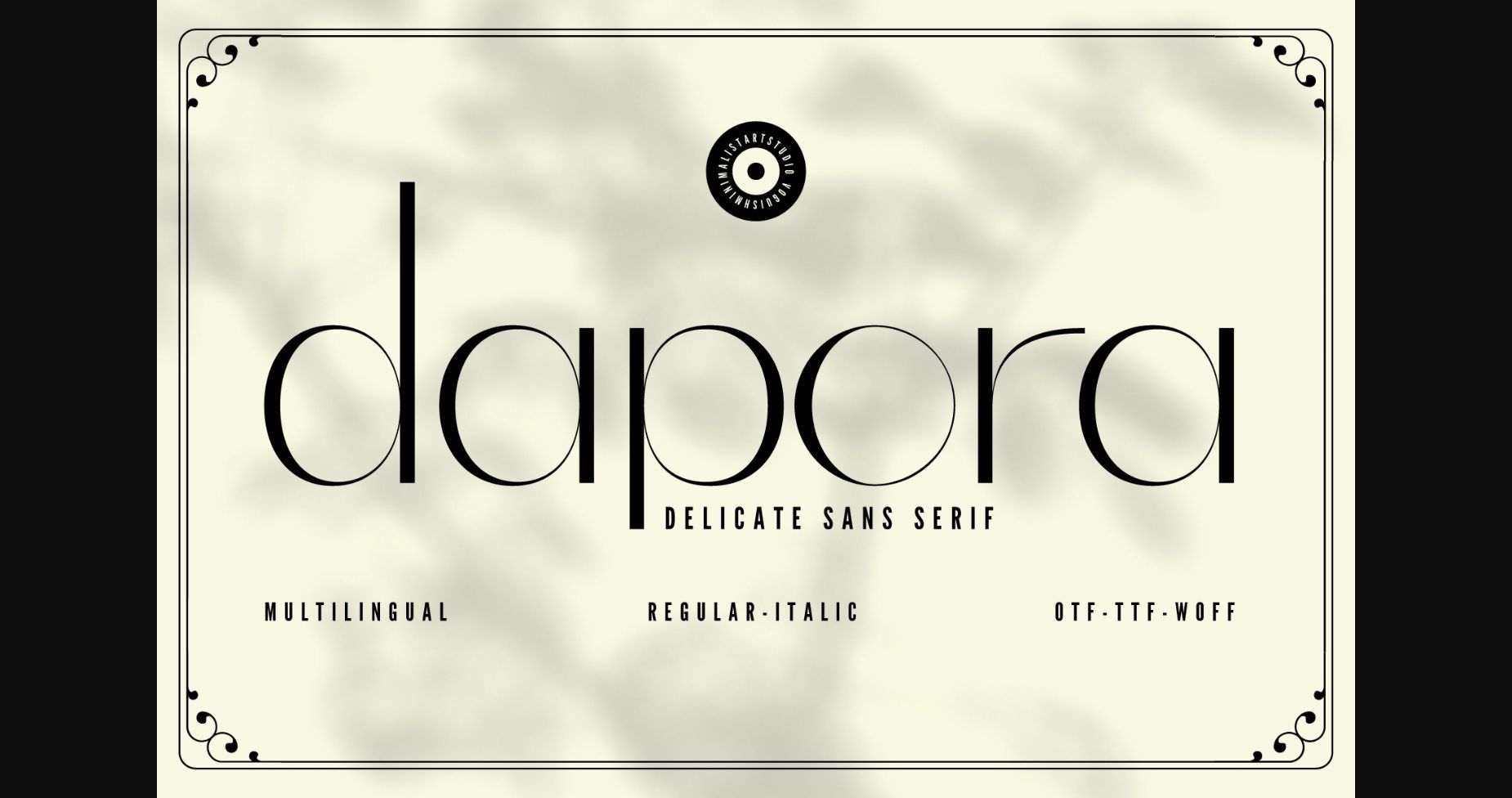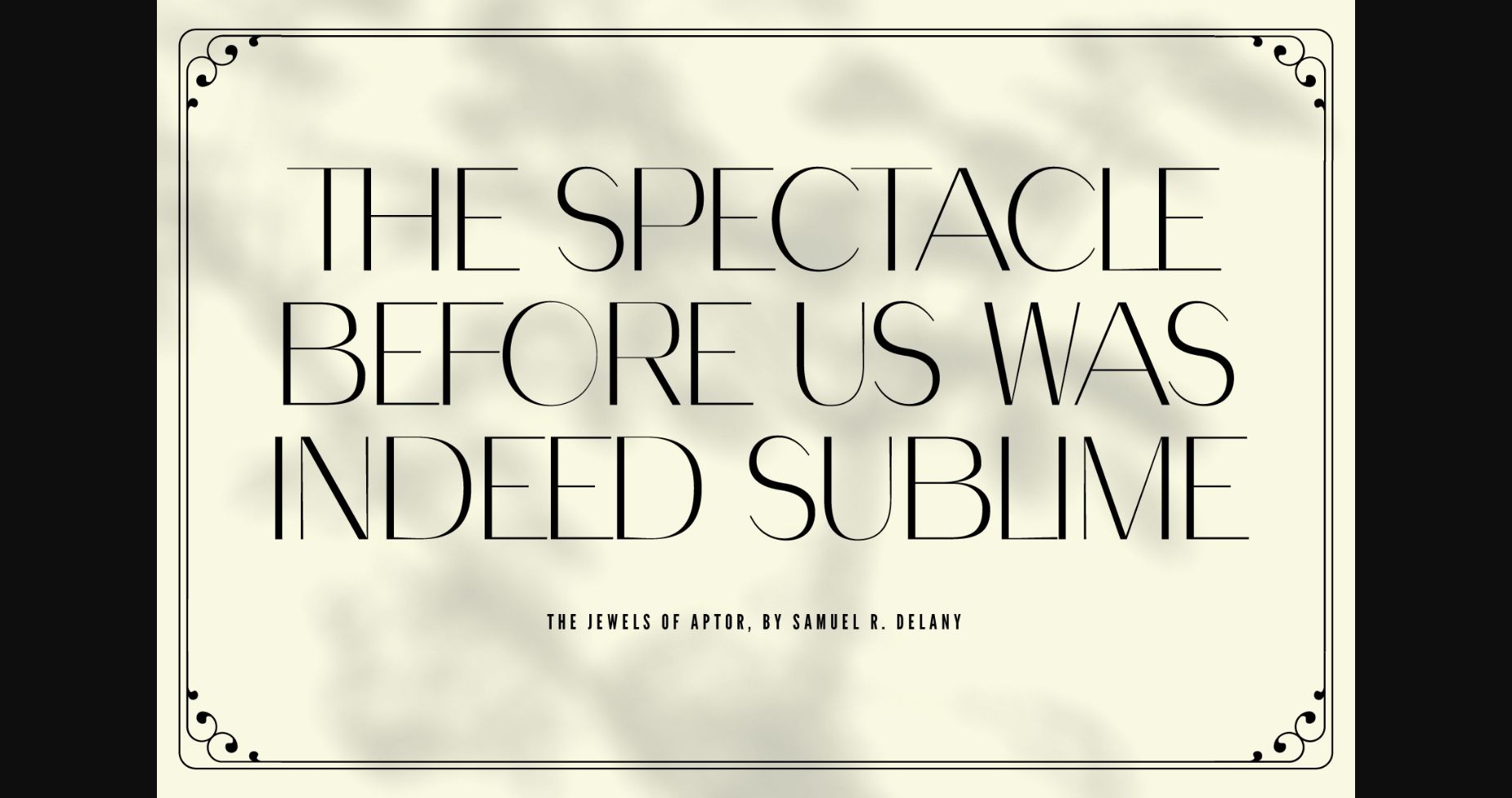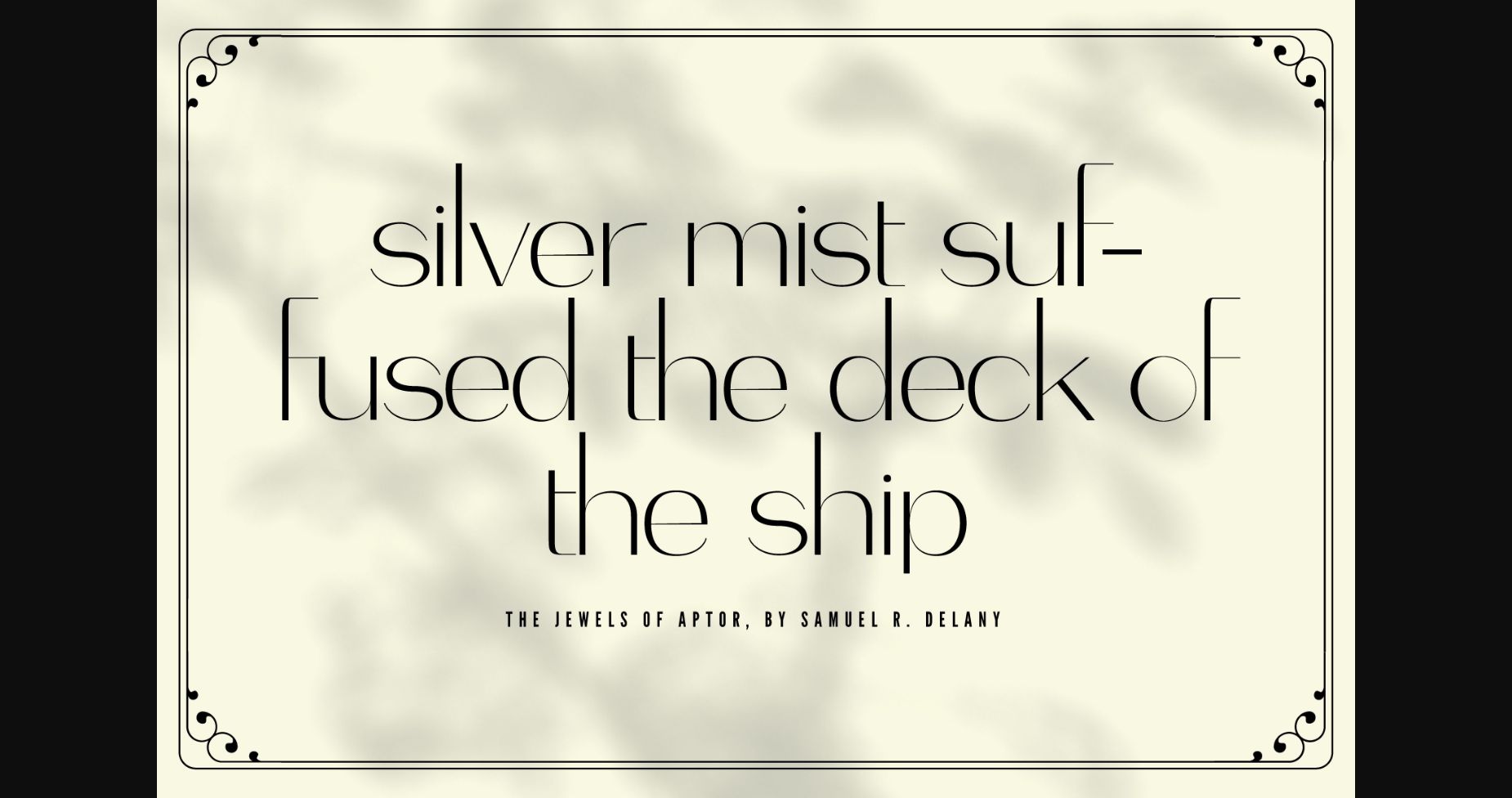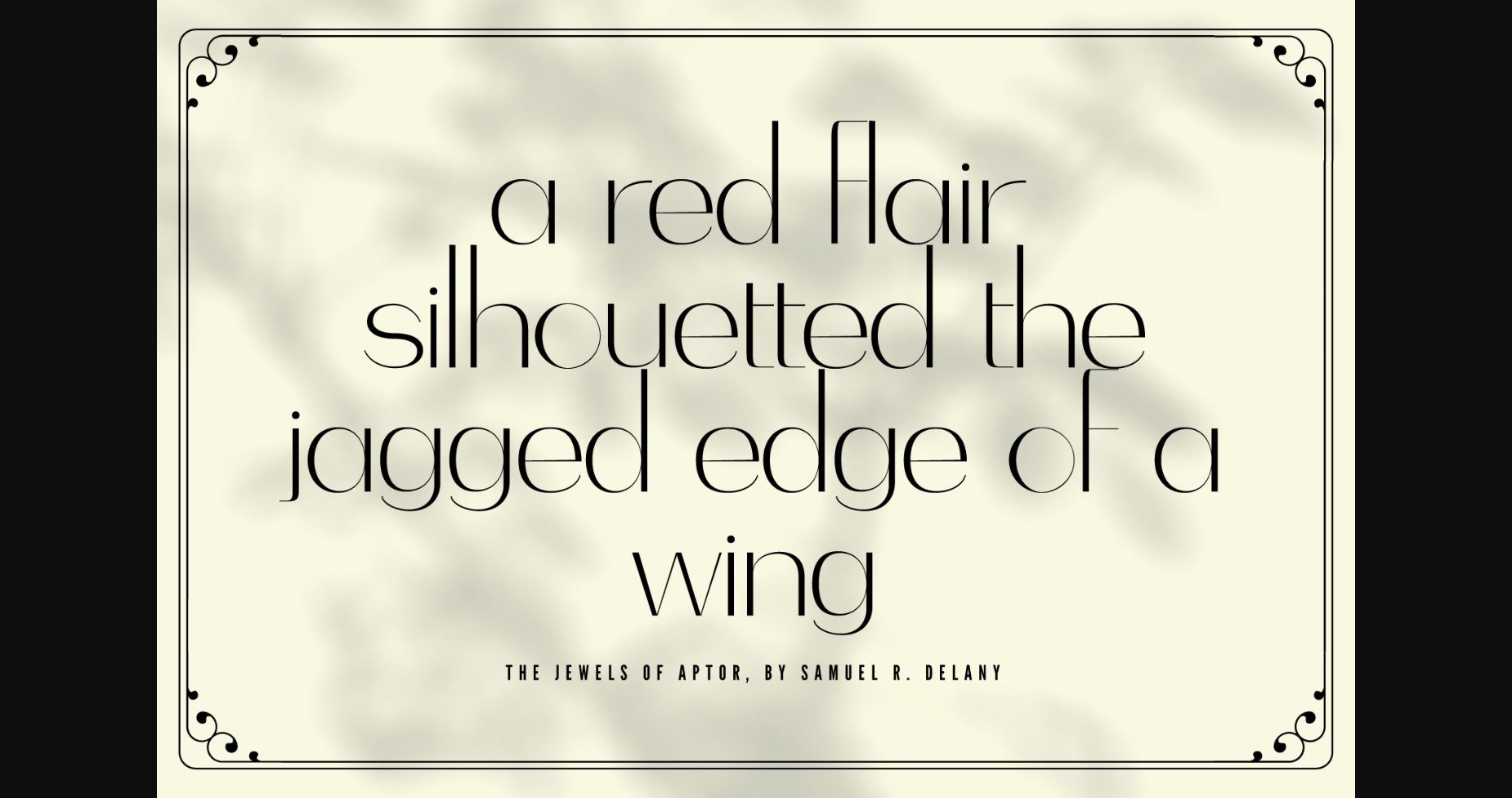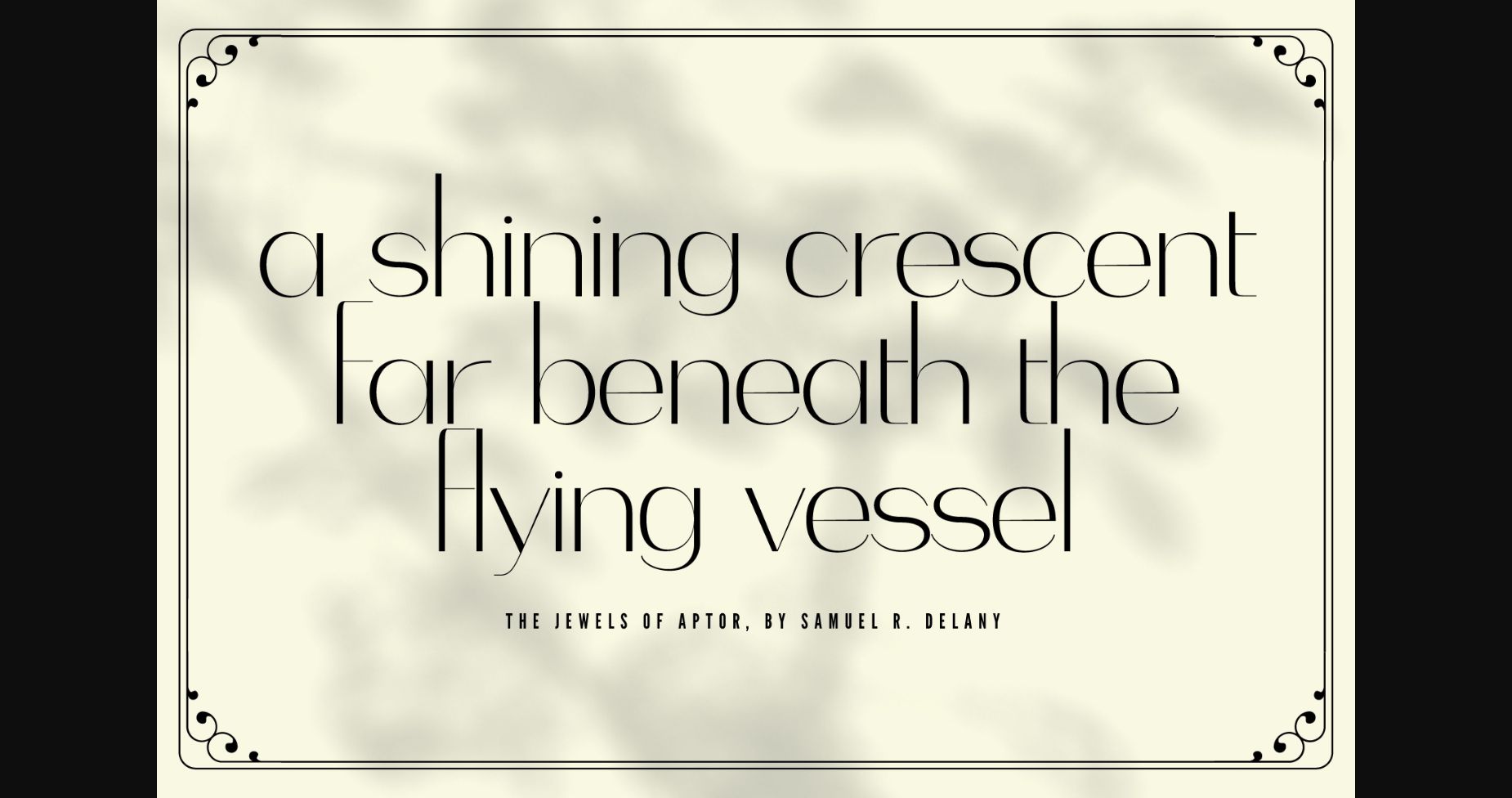
About Dapora Font
Dapora is a chic and elegant sans-serif font that will elevate your design to the next level. With its minimalist design, Dapora exudes sophistication and style, making it the perfect choice for modern brands, high-end products, and luxury designs.